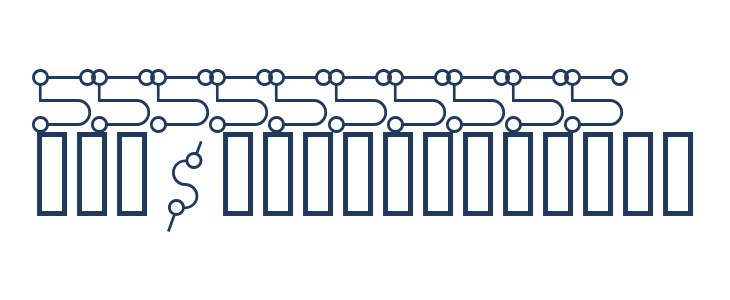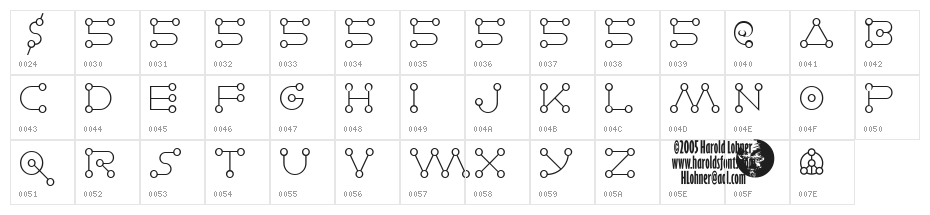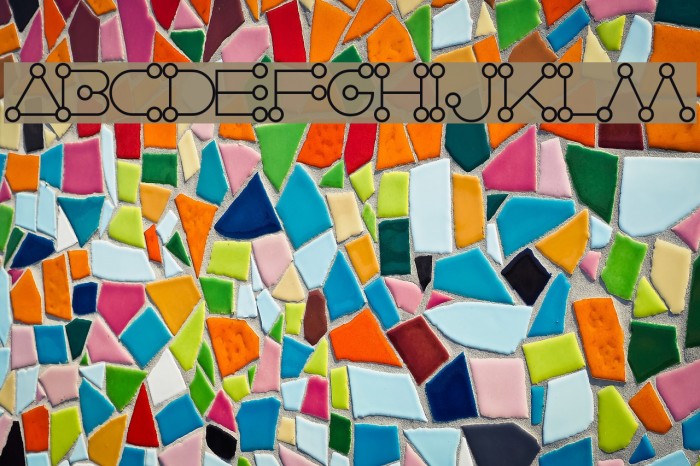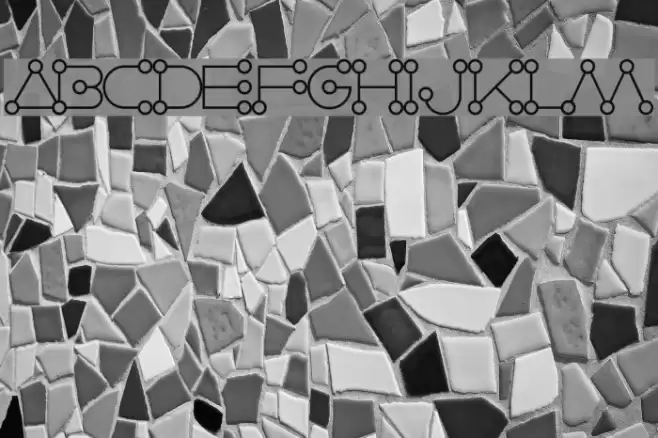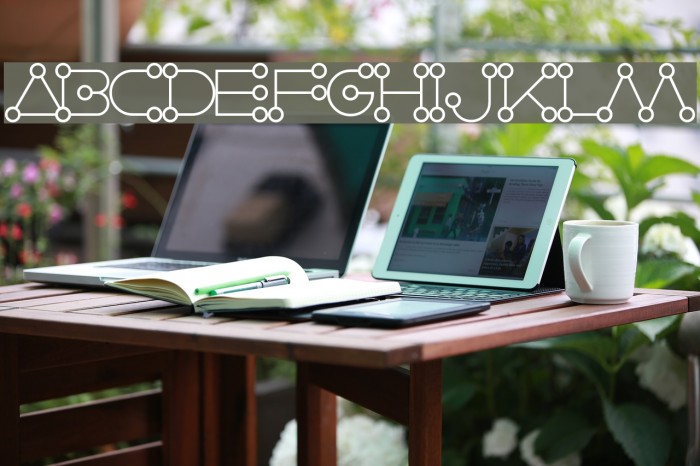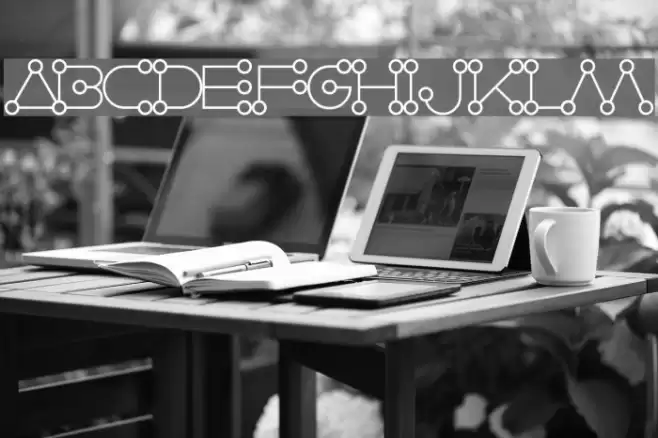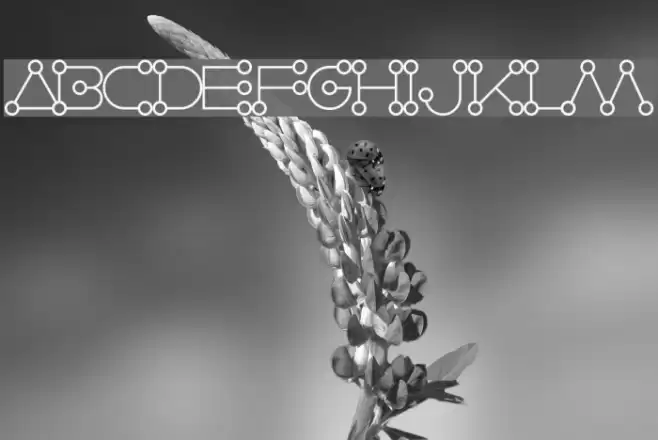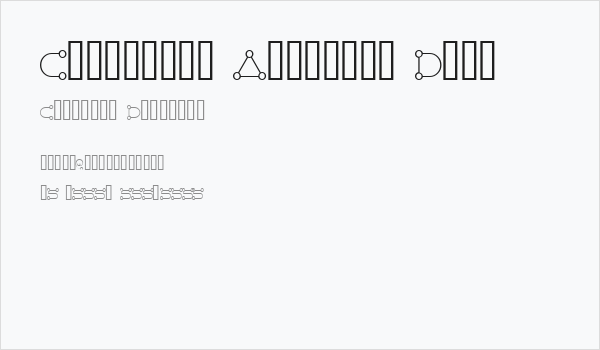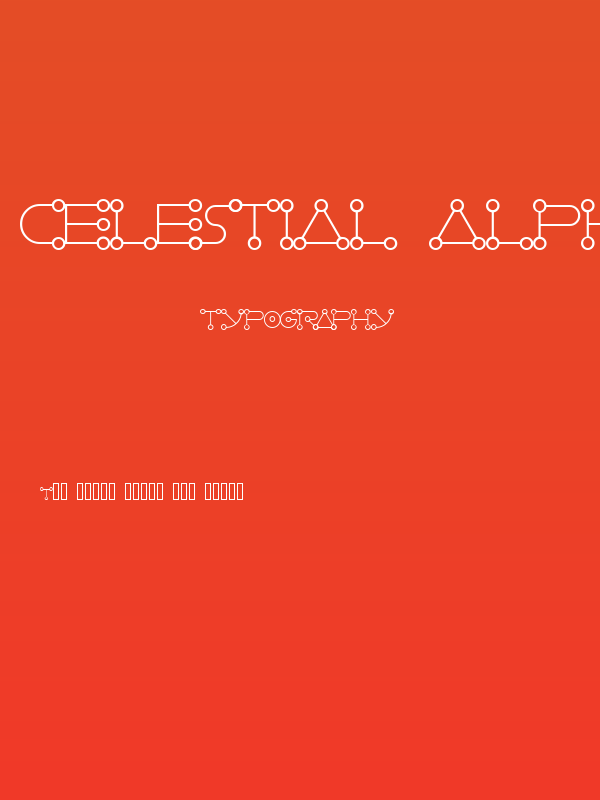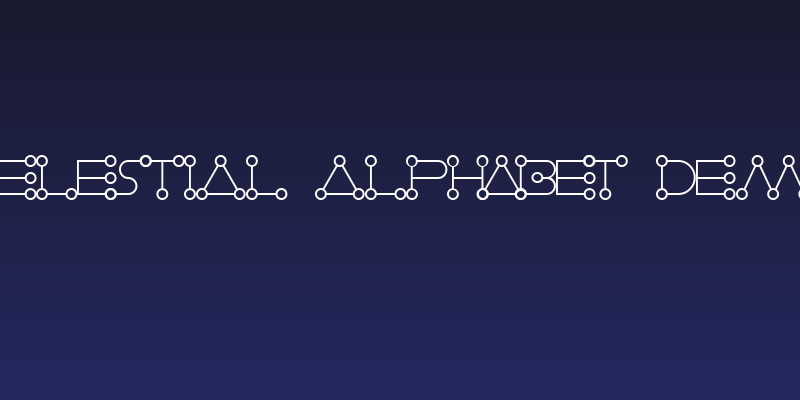
Celestial Alphabet Demo Font
Celestial Alphabet Demo Description
This font features a unique and decorative style that combines geometric shapes with a celestial theme. Each character is constructed using circles and lines, creating a constellation-like appearance. The uppercase letters are particularly intricate, with interconnected dots and lines that mimic star patterns. The lowercase letters maintain a similar style but are more simplified. The numbers and special characters also follow this celestial motif, making the entire set cohesive and visually striking. This font is ideal for projects that require a futuristic or cosmic aesthetic, offering a distinct and artistic touch.
| Overall Style | Futuristic, Artistic |
| Proposed Projects | Ideal for sci-fi book covers, astrology-themed posters, or futuristic branding. |